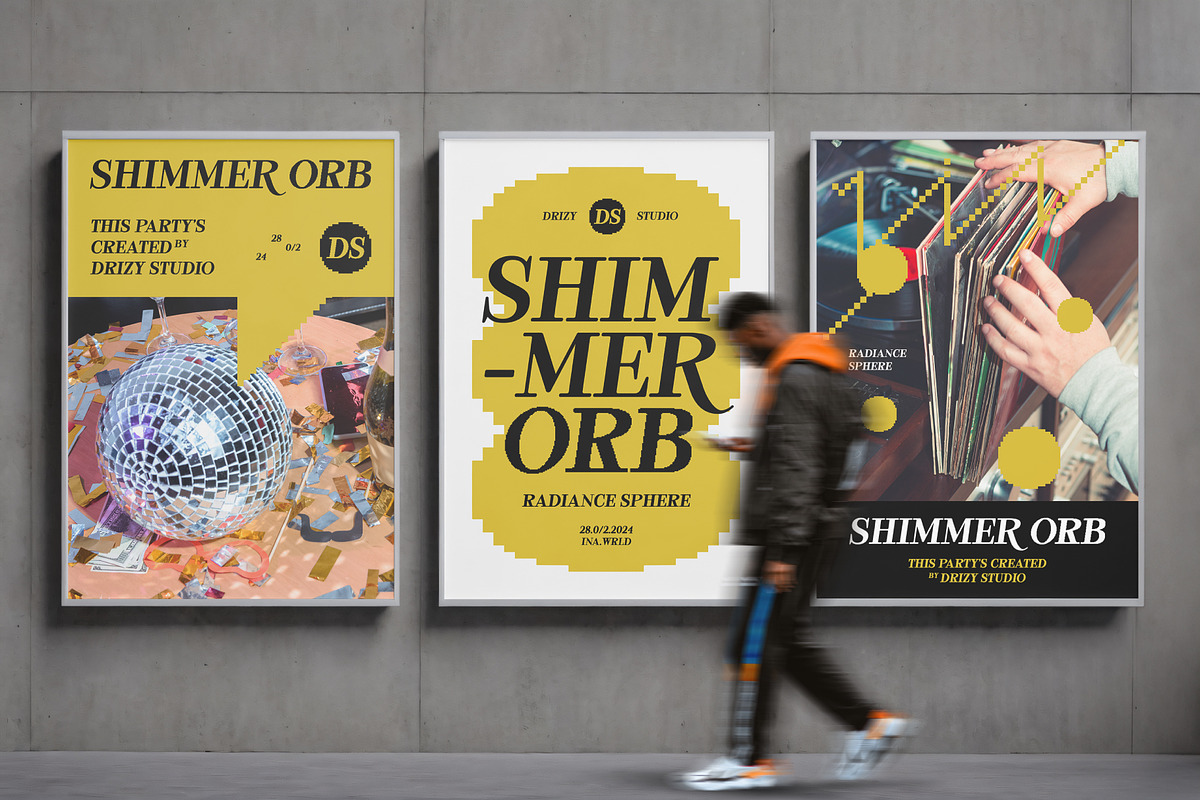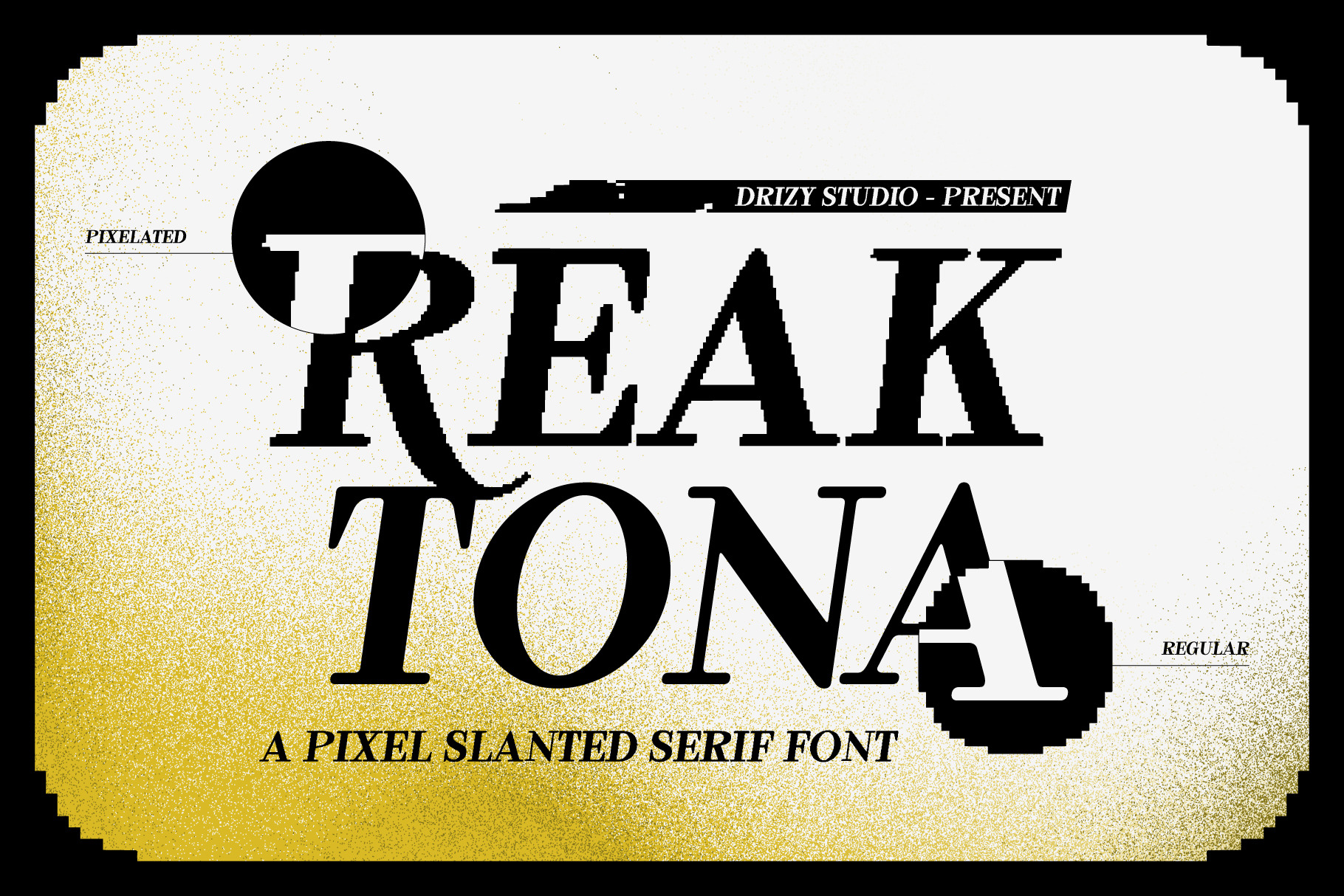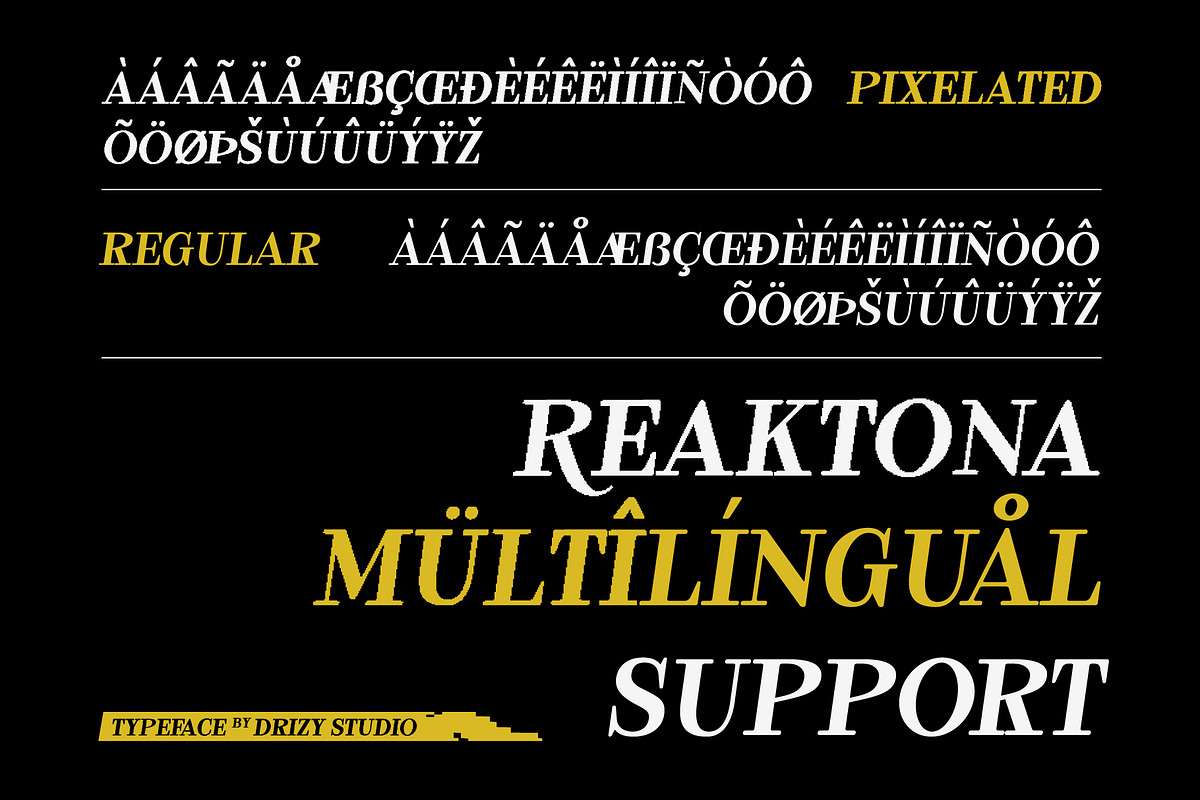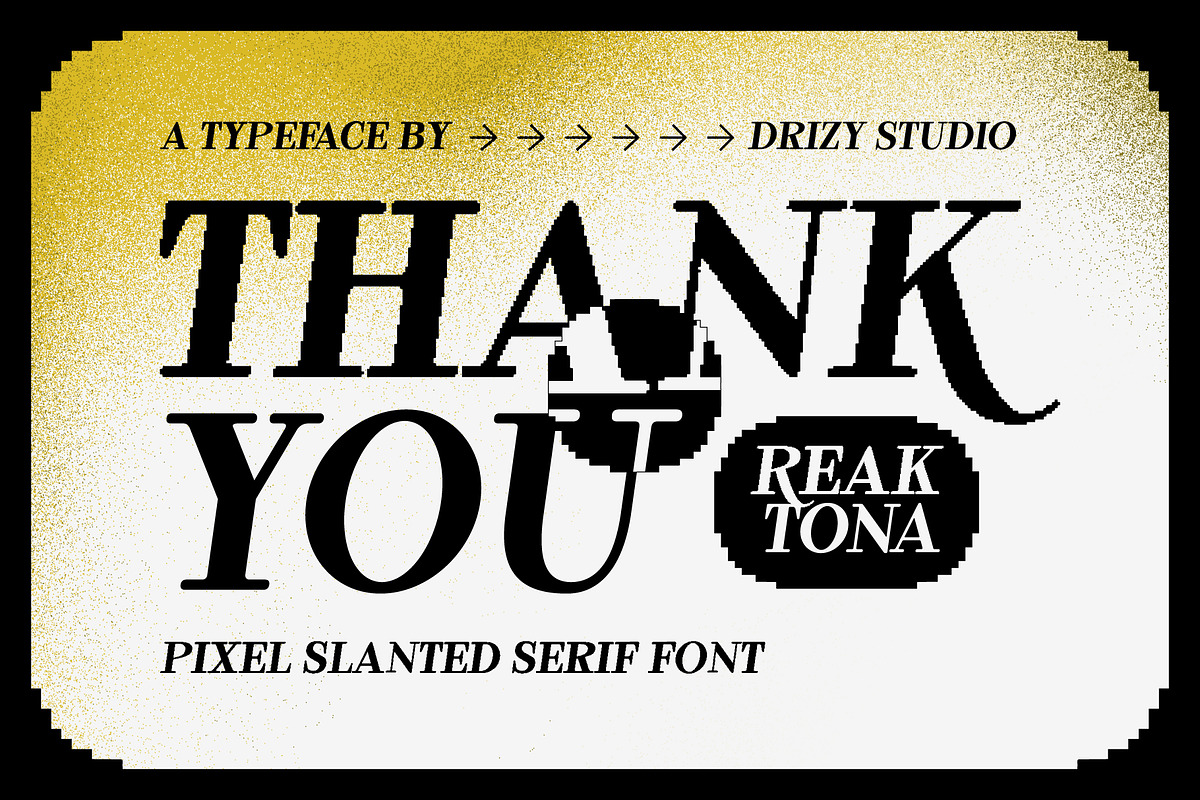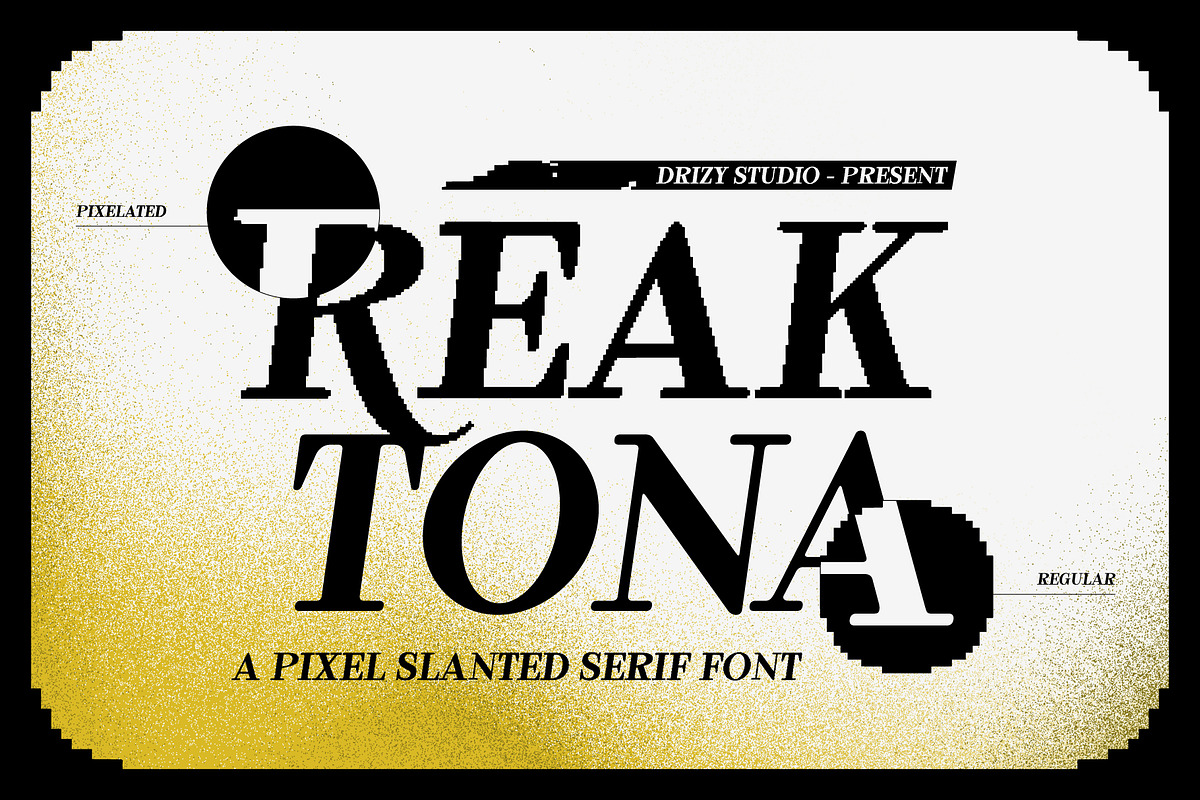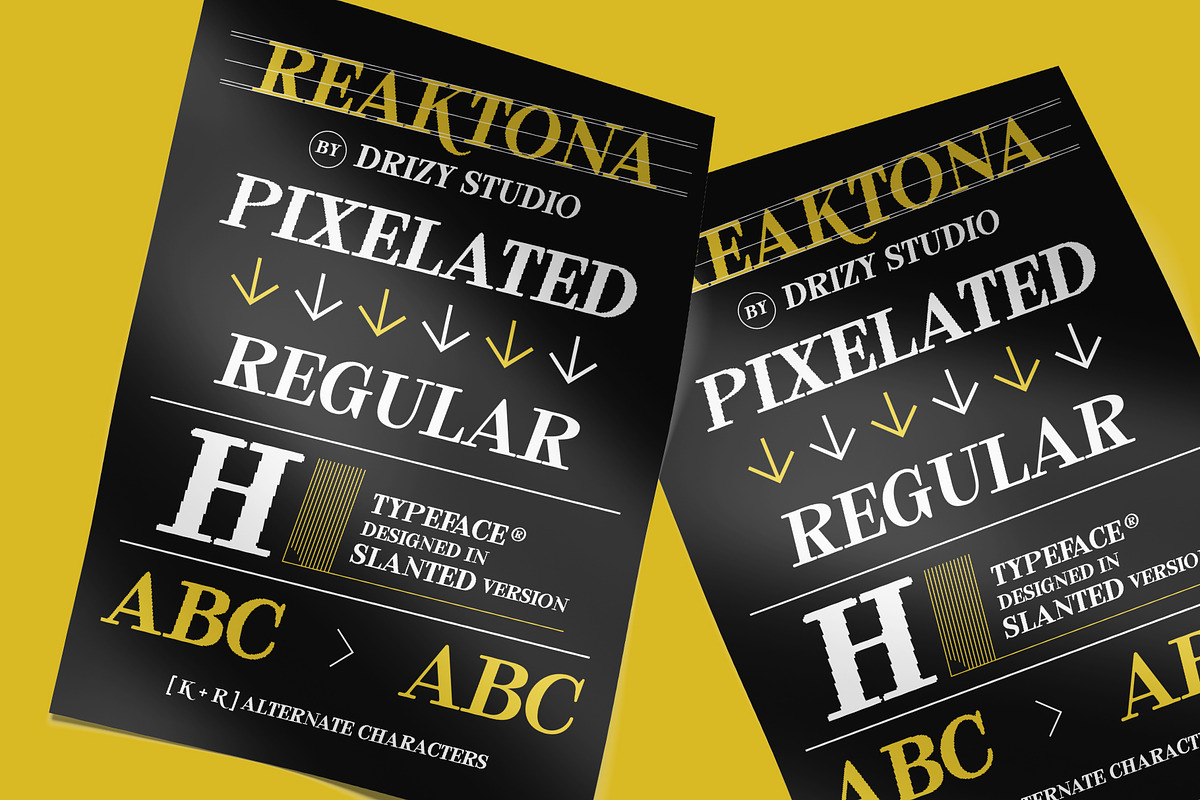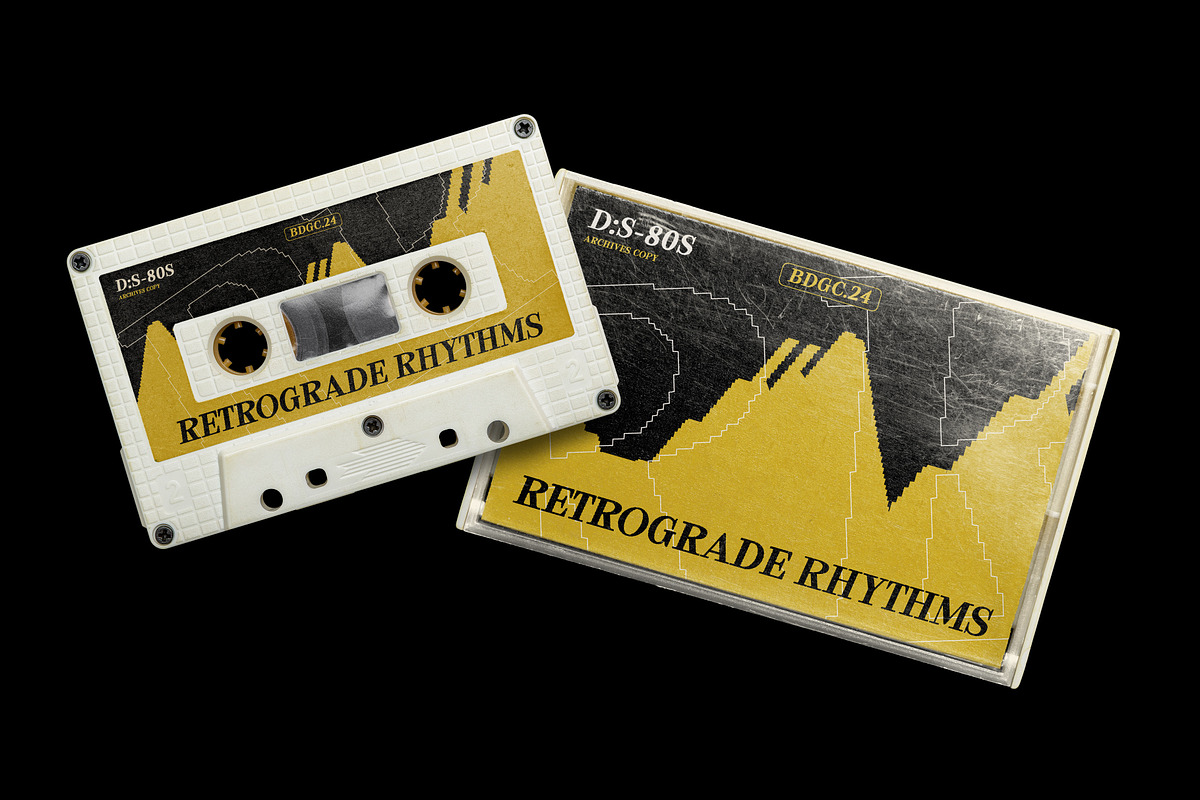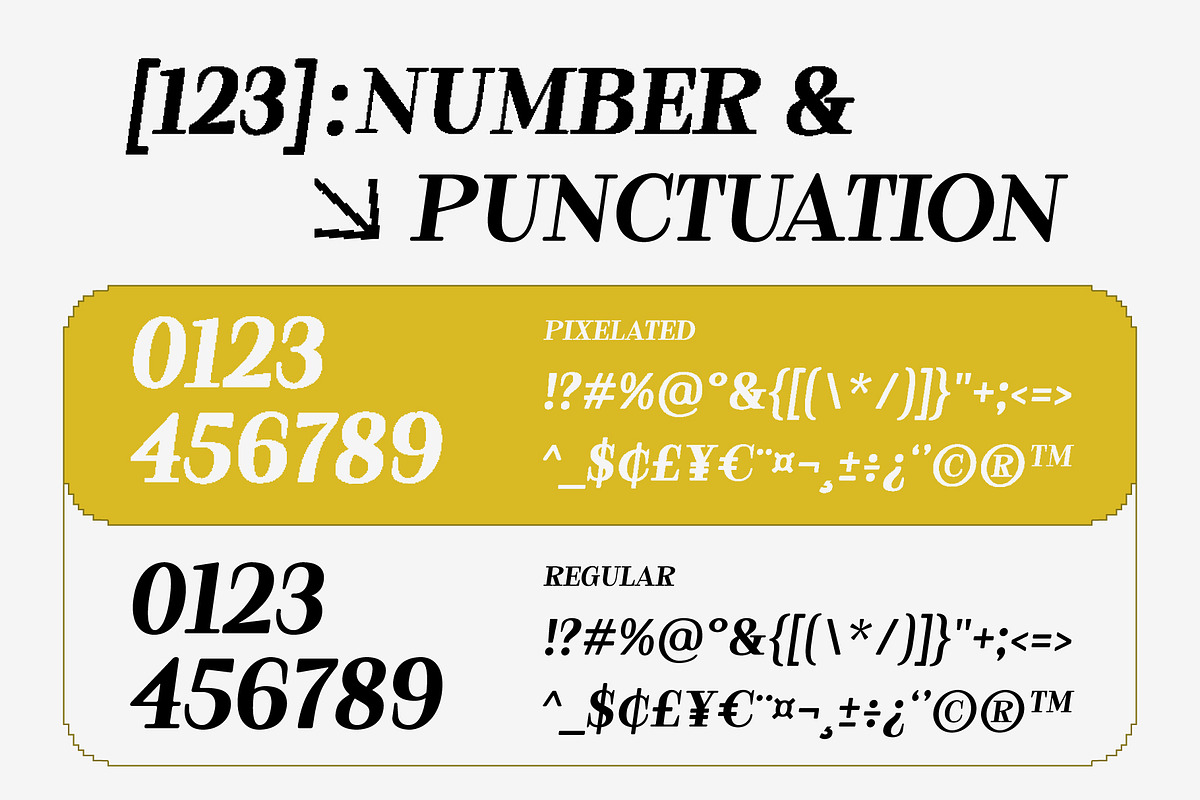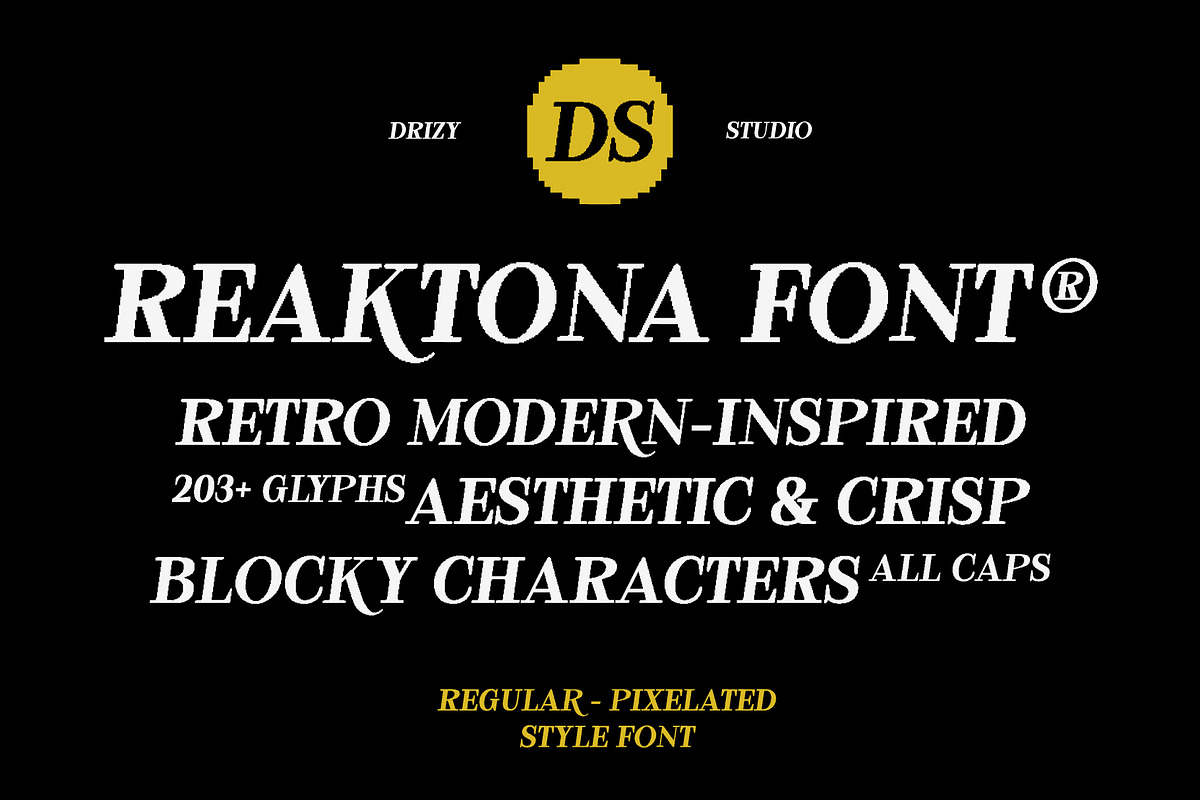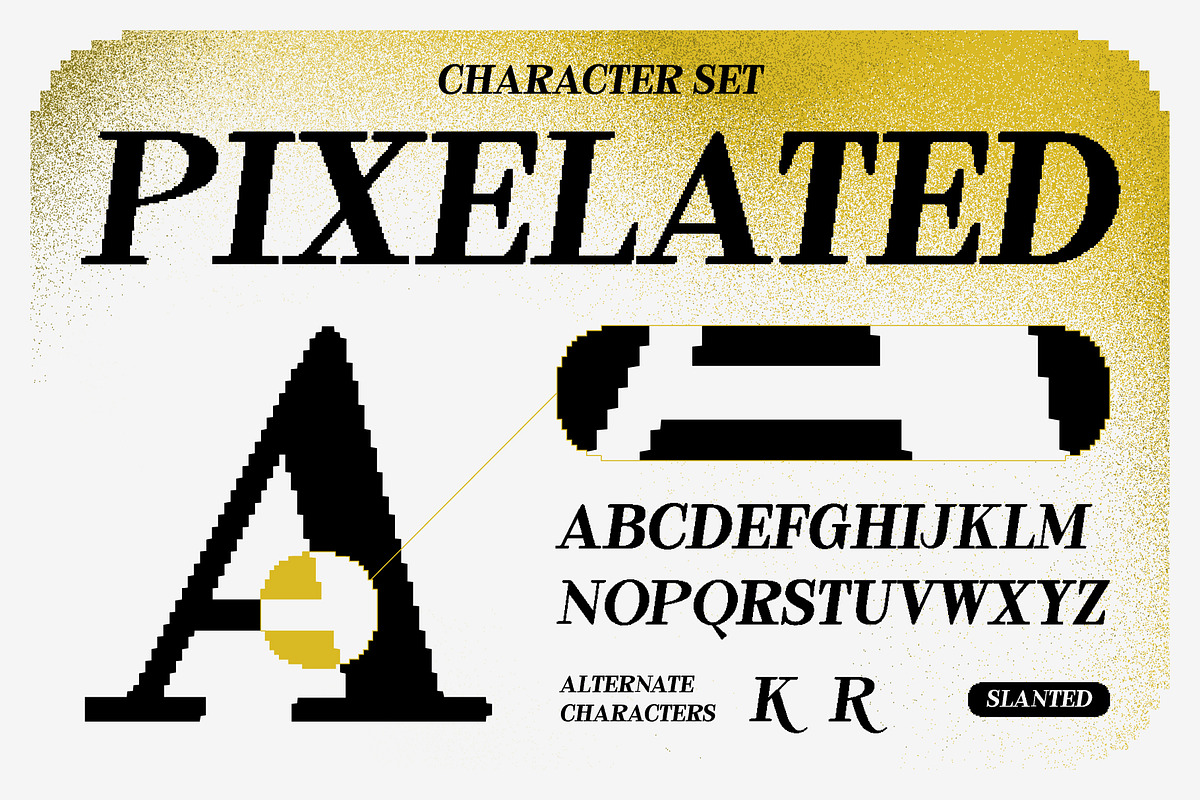
Reaktona - Pixel Slanted Serif Font
Introducing Reaktona - a striking Pixel Slanted Serif Font designed to bring a bold and dreamy aesthetic to your projects. With its unique blend of pixelated aesthetics and sleek serifs, Reaktona exudes a contemporary charm perfect for graphic design, branding, headlines, and more.
Reaktona features: Character Set Variable: Regular & Pixelated Punctuation & Numbers Multilingual Alternates
Elevate and explore the design possibilities with this pixel font!